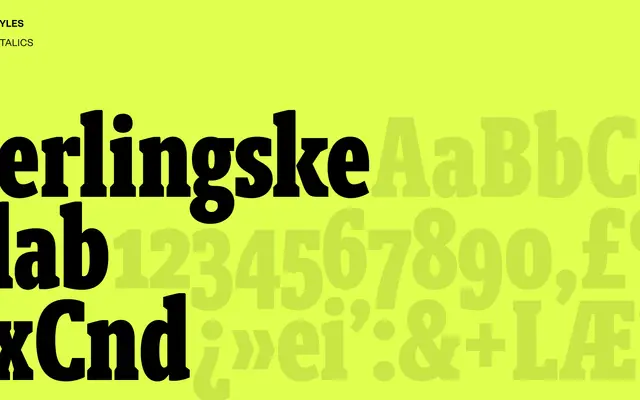
Berlingske Slab Extra Condensed
An extra condensed slab serif cut from the Berlingske family, built for tight editorial columns and display settings.
Part of Playtype's Berlingske series, this extra condensed slab variant compresses the family's proportions for use in narrow measures and headline work. The slab construction gives it editorial weight without sacrificing legibility at display sizes. It suits newspaper-style layouts and magazine headlines where vertical economy is needed.
Extra condensed slab serif, part of the broader Berlingske family. The compressed proportions and slab construction suggest editorial and display use.